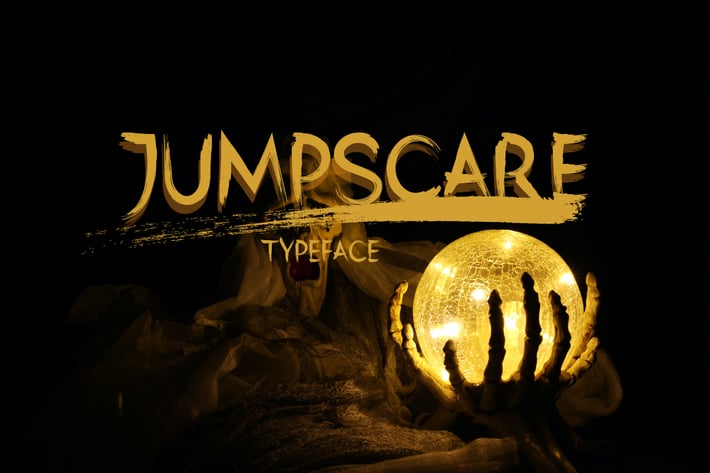
Jumpscare - Handbrush Font
Introducing Jumpscare, an elegant, simple, and dark handbrush font.
So perfect for you who needs a typeface for logo designs, magazine, social media, brochure, and many more.